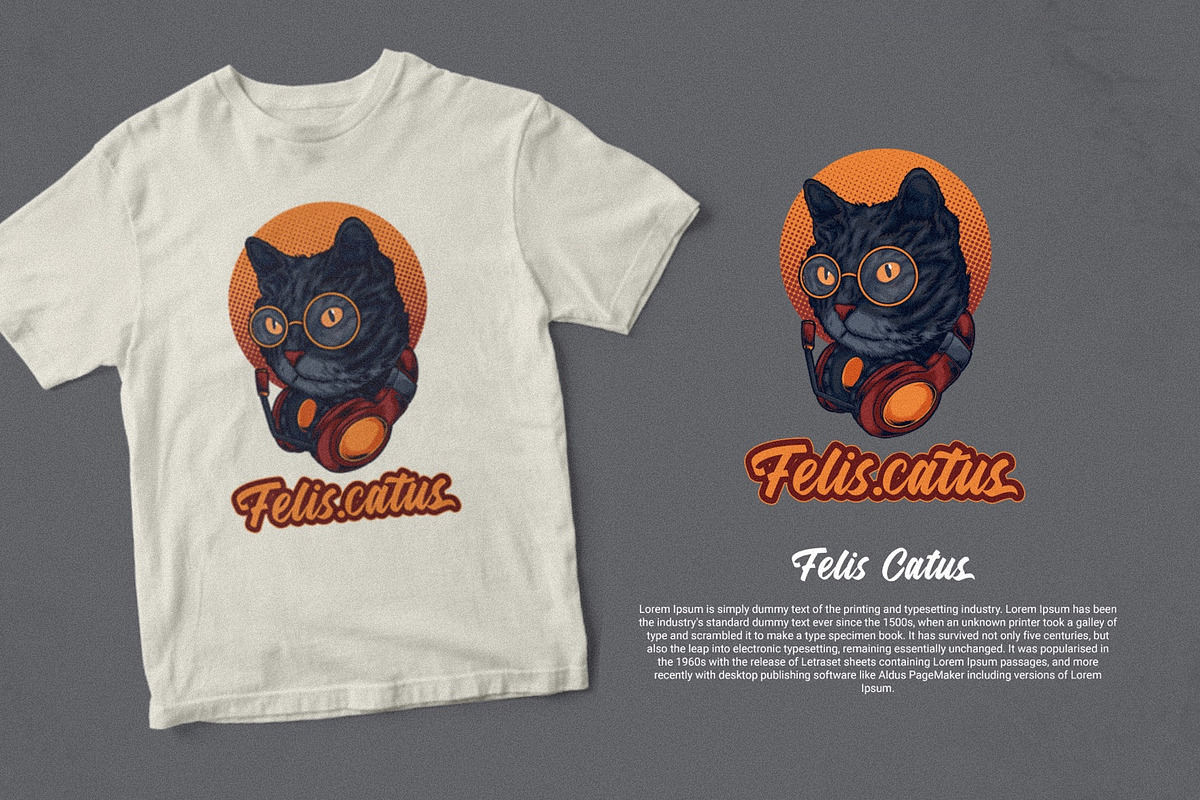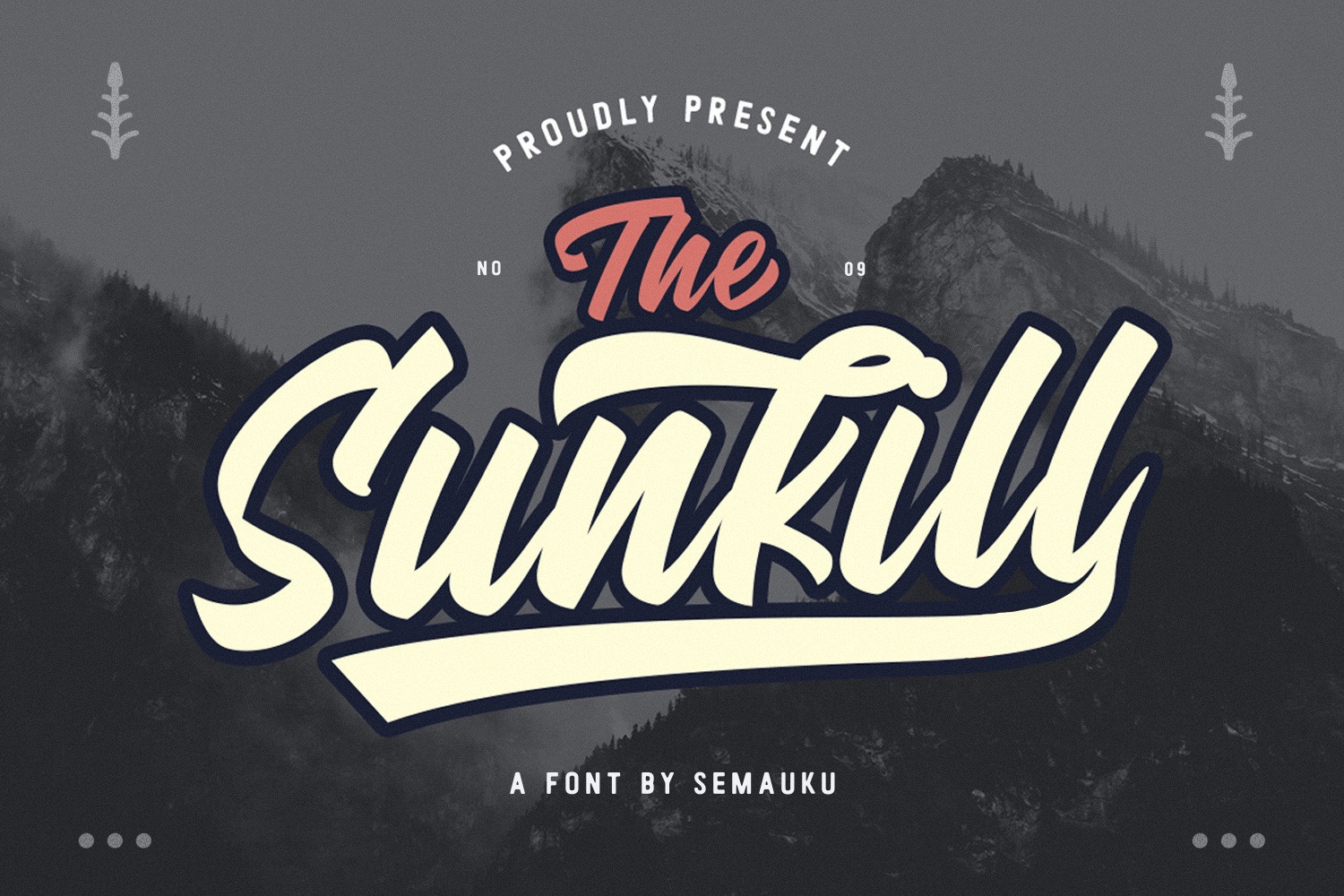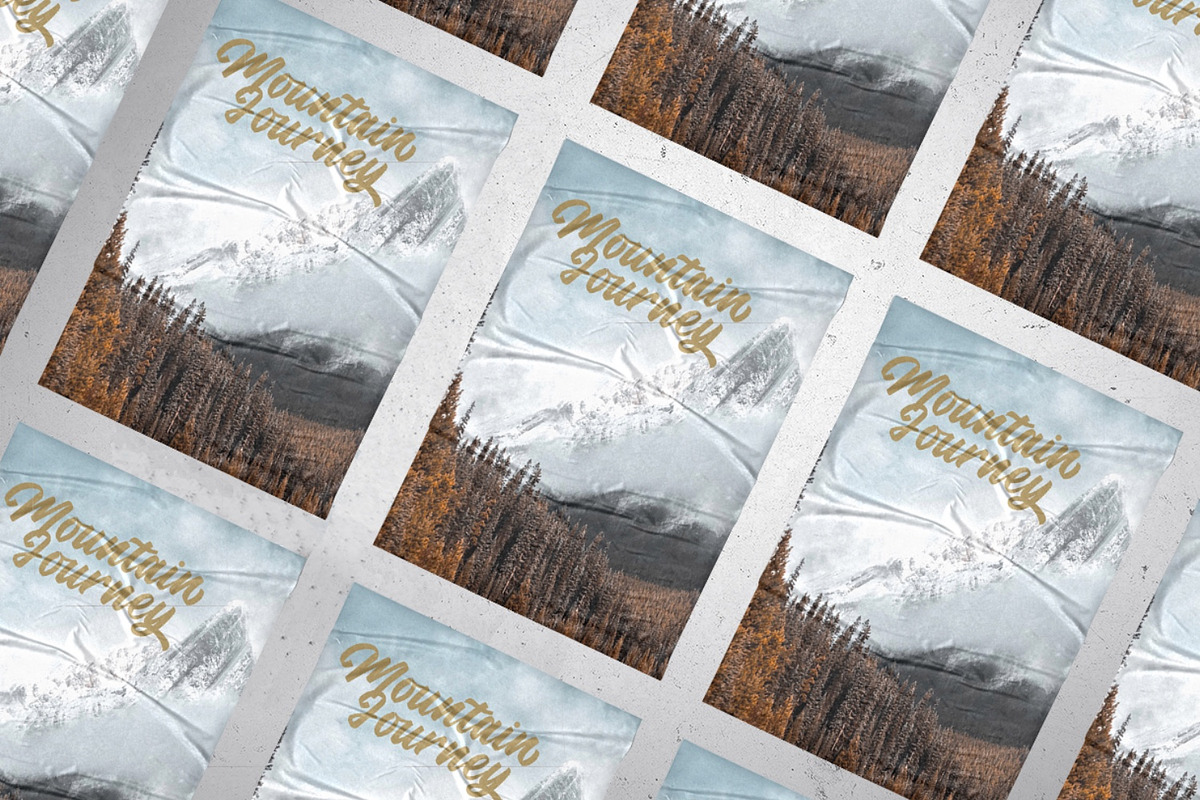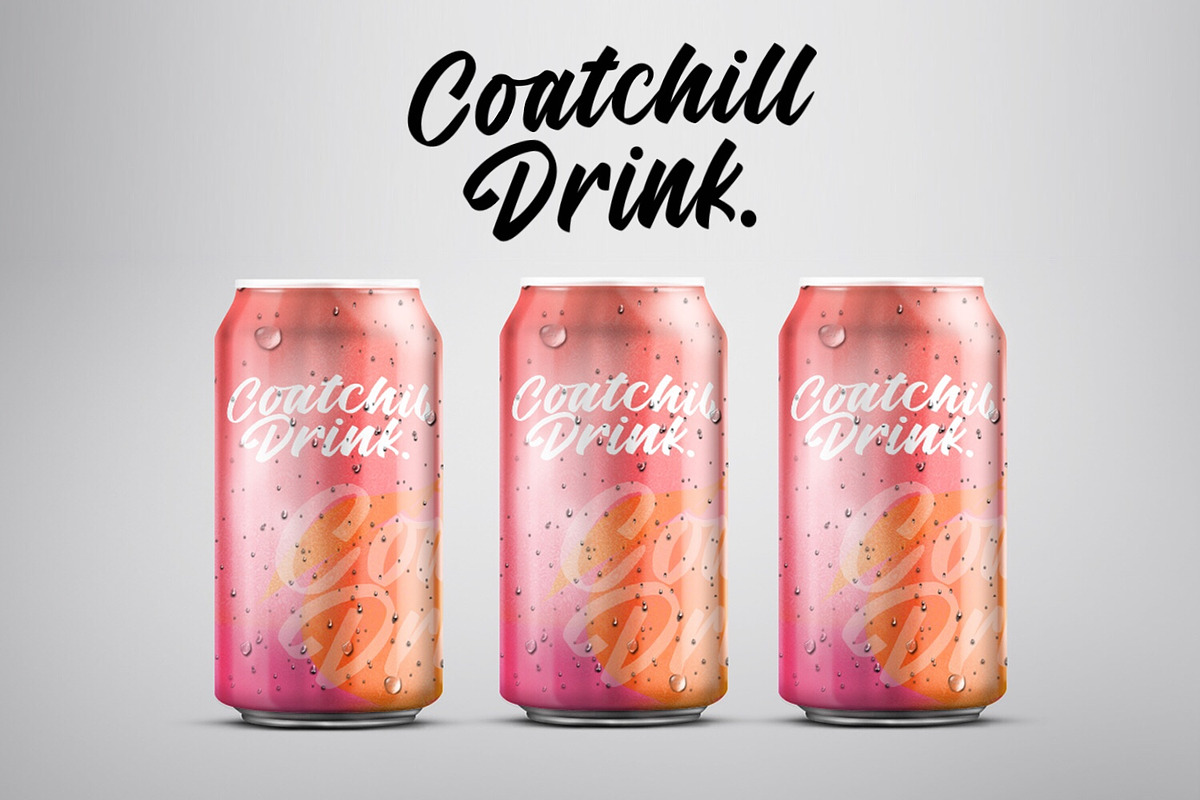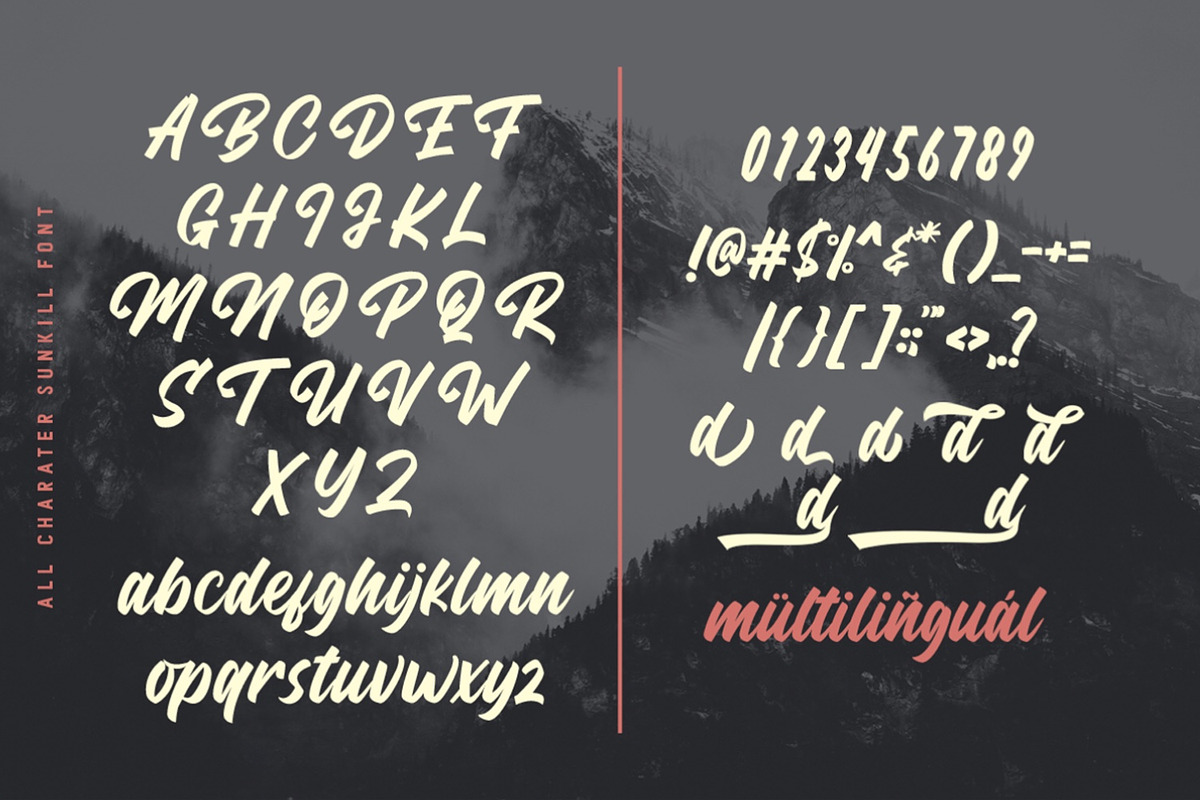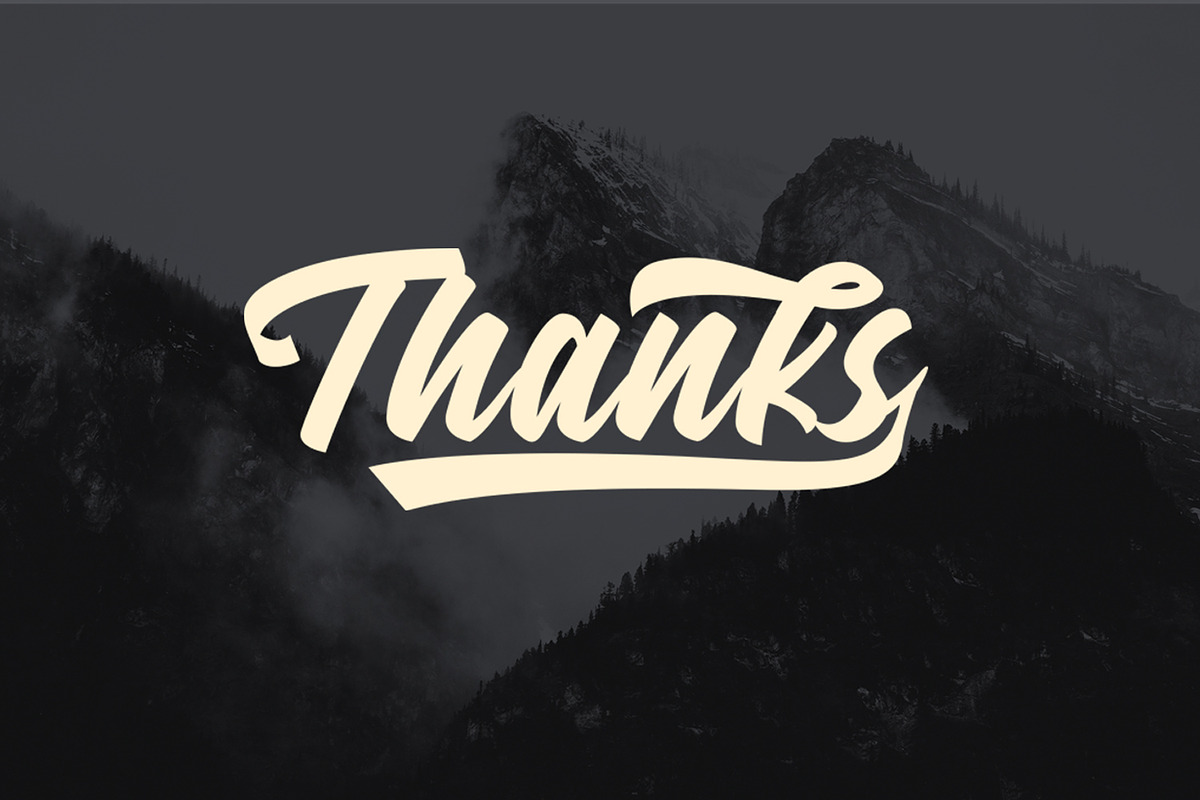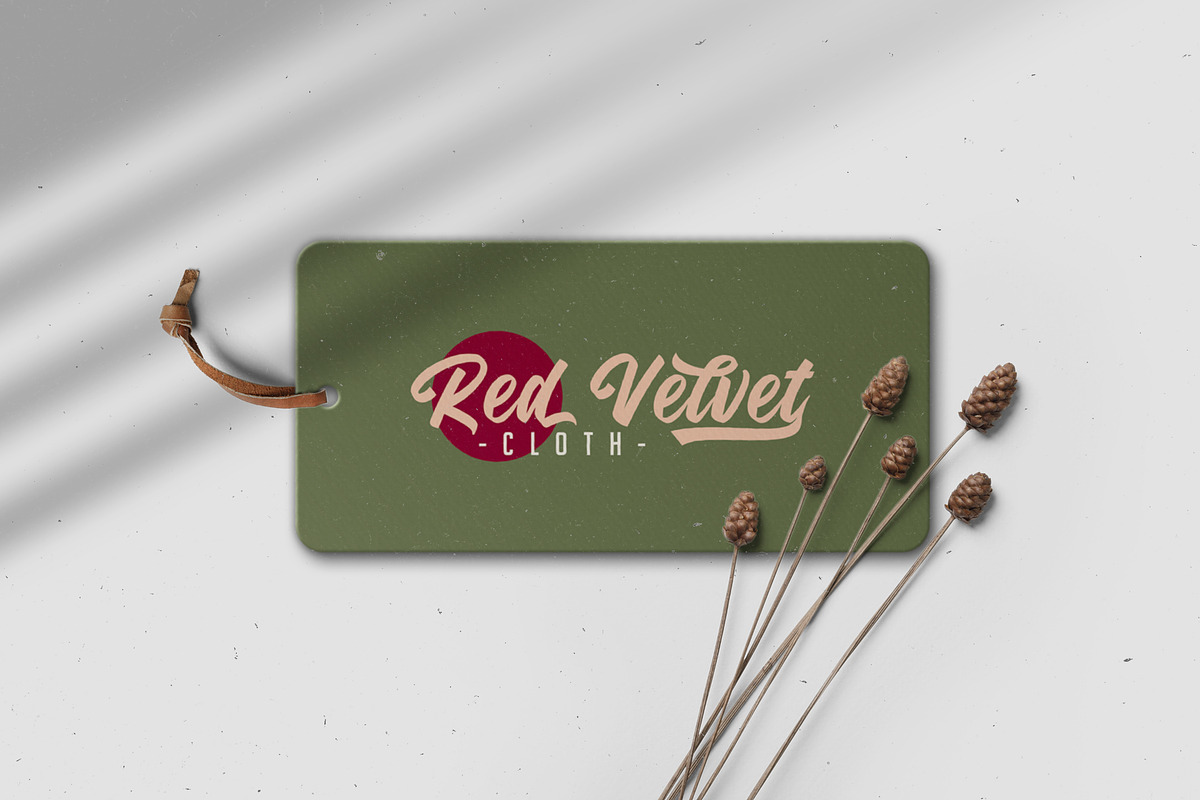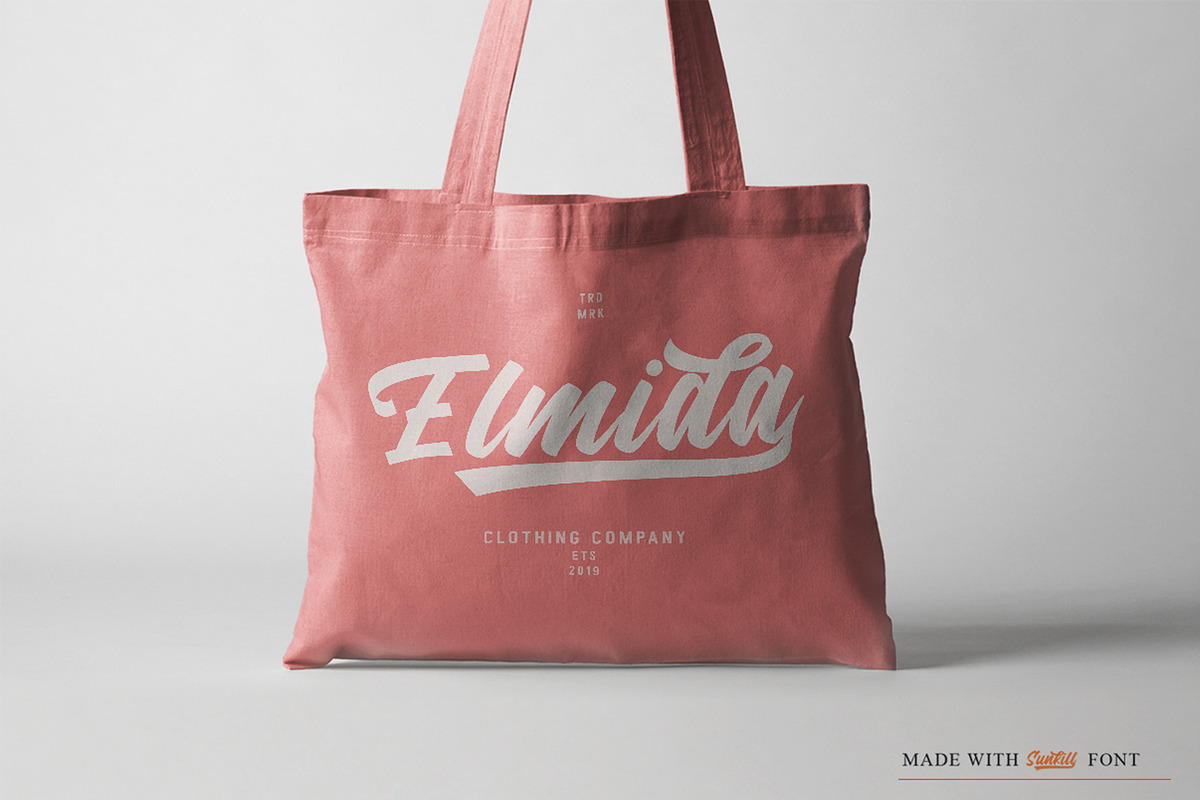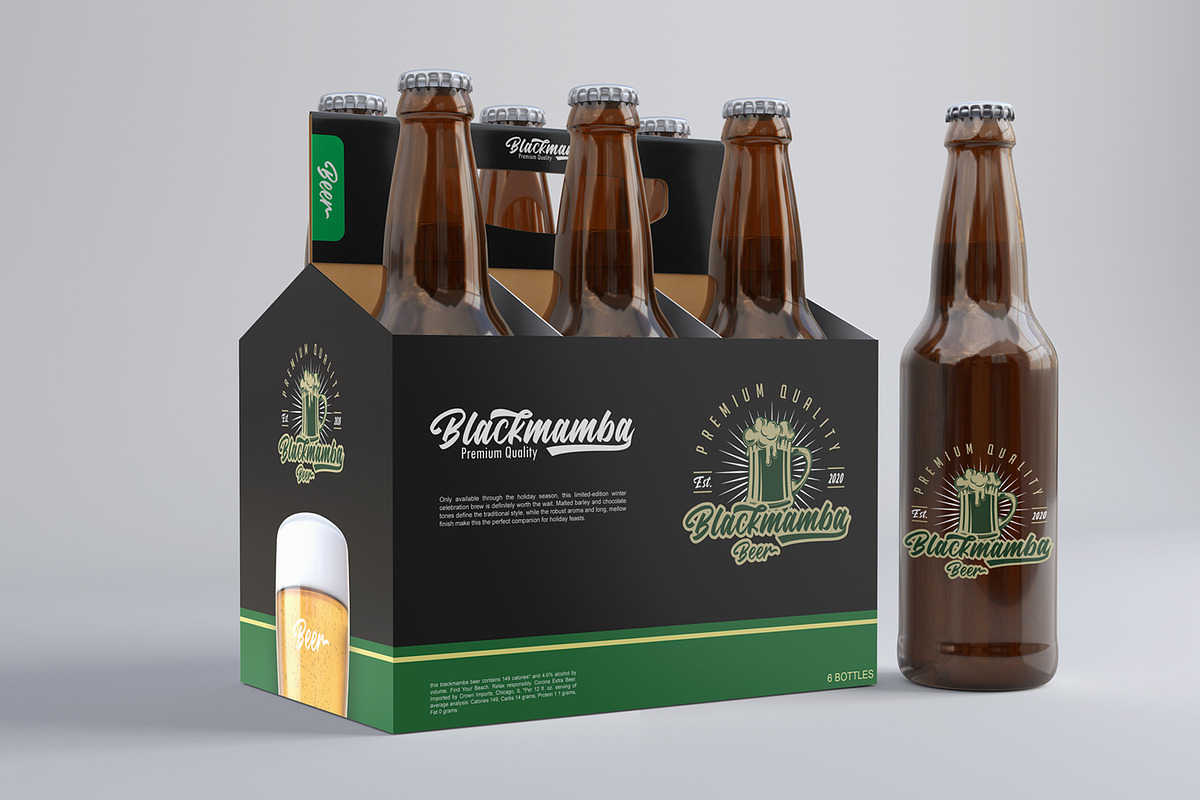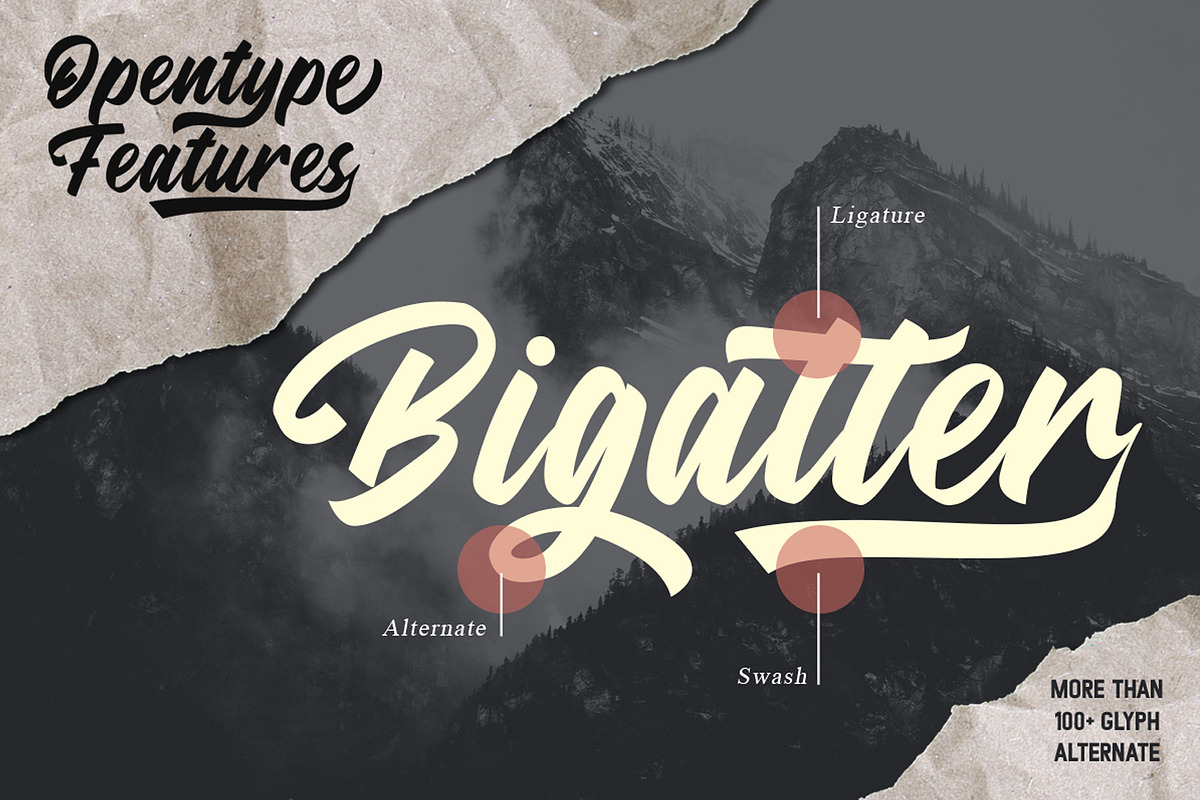
Sunkill Script Font
Sunkill is a unique bold script font, this font is suitable for labels, for logos, coffee shops, merchandise, apparel, branding, packaging, and so on. Sunkill is created from flat marker scratches and then digitized to become a unique character.